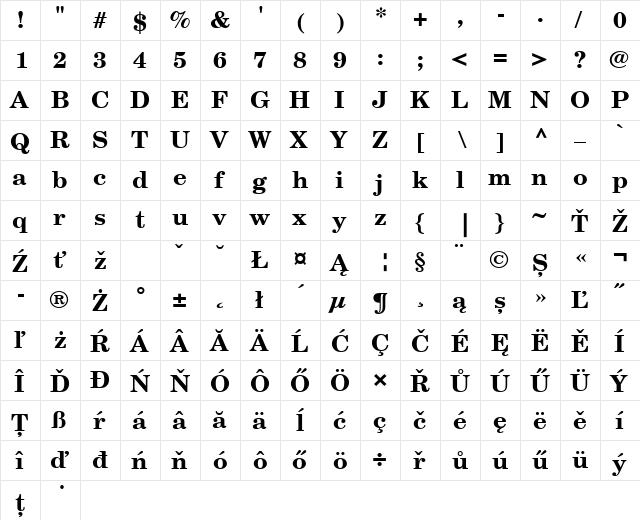
New Century Schlbk CE Bold Font Preview
New Century Schlbk CE Bold
Design Context for New Century Schlbk CE Typeface
New Century Schlbk CE offers clean, dependable letterforms without strong stylistic allegiance, making it a practical choice for designers who need flexibility. The heavy weight commands attention and anchors typographic hierarchies.